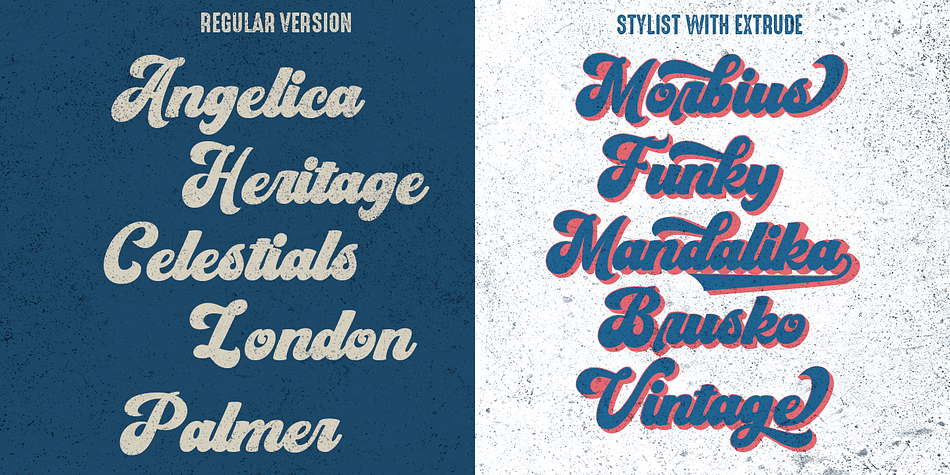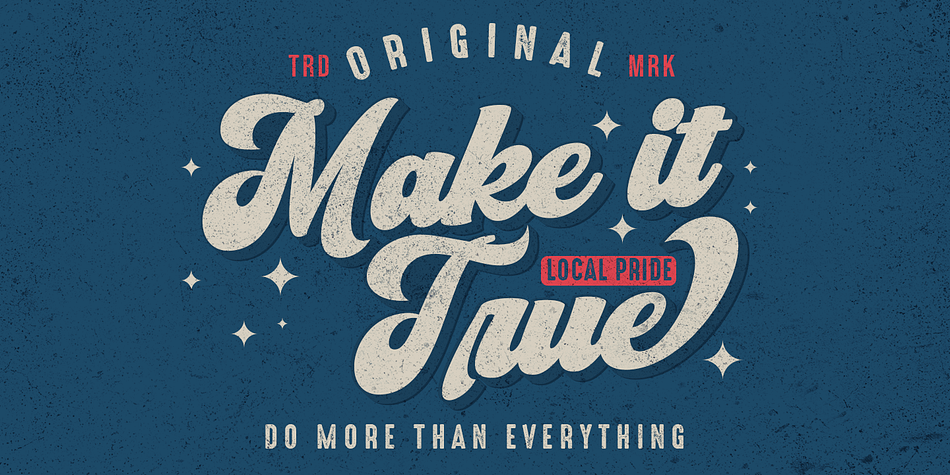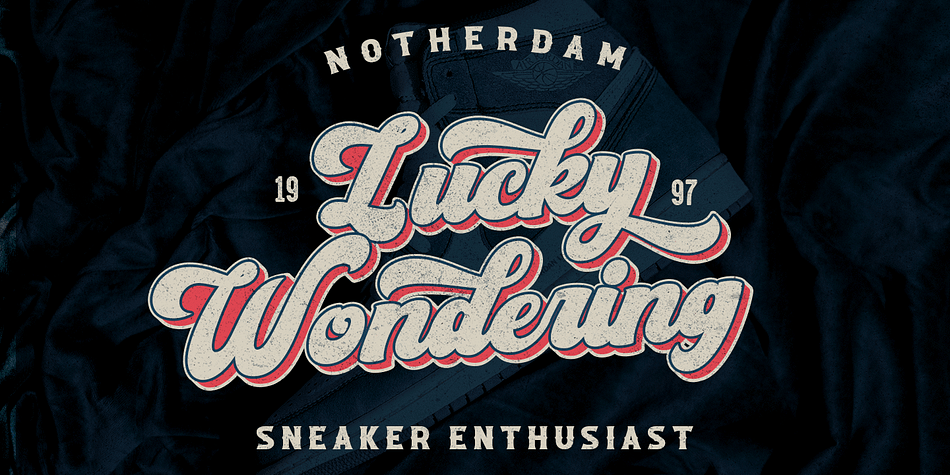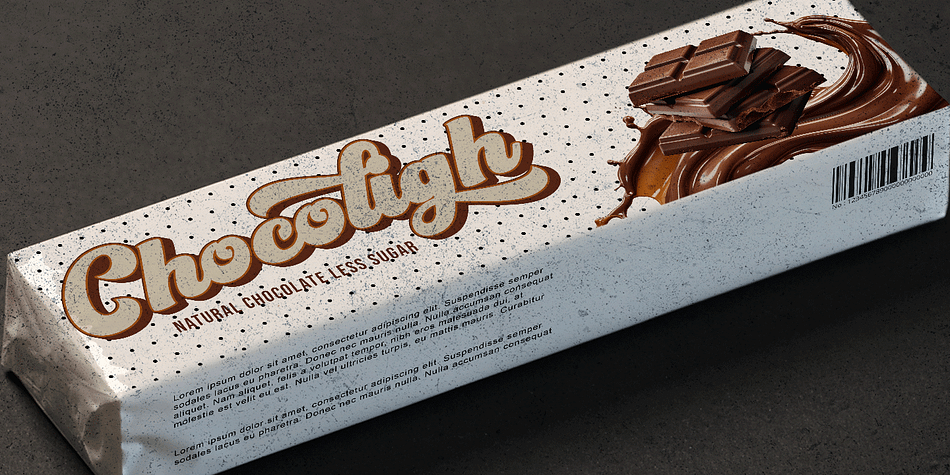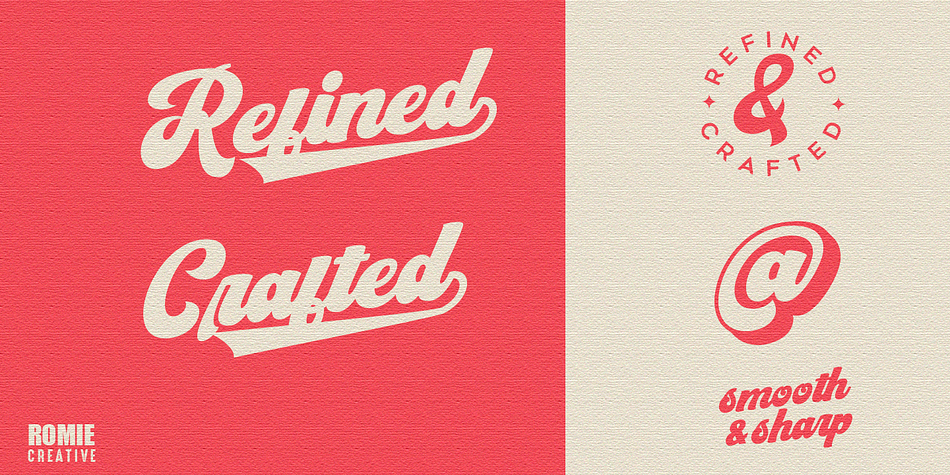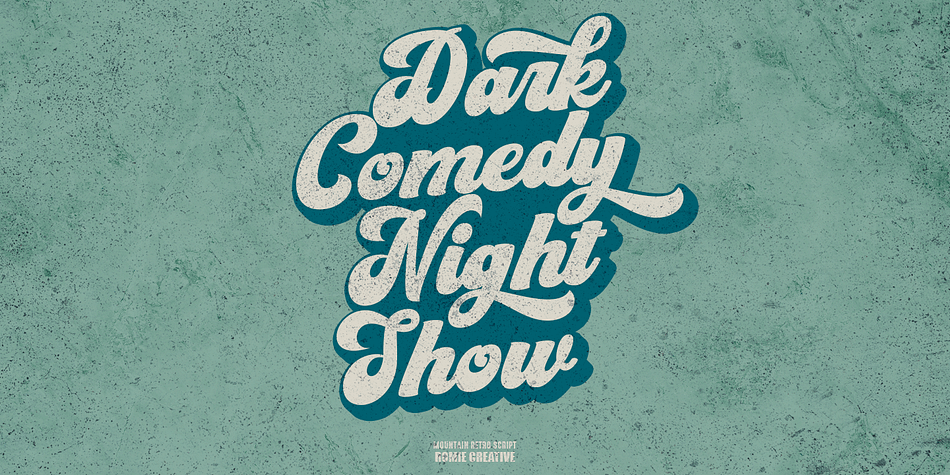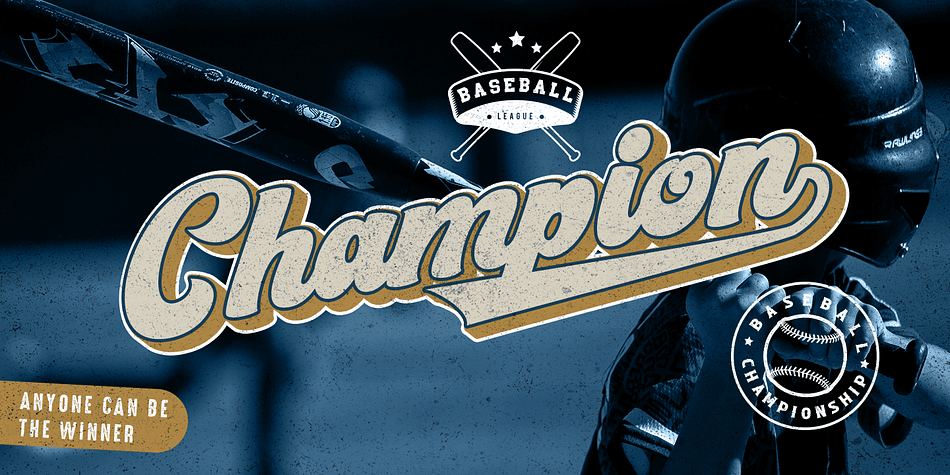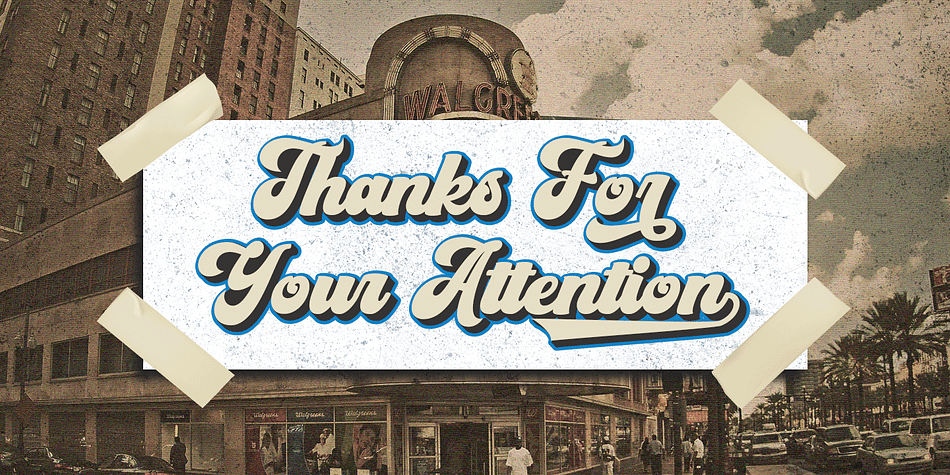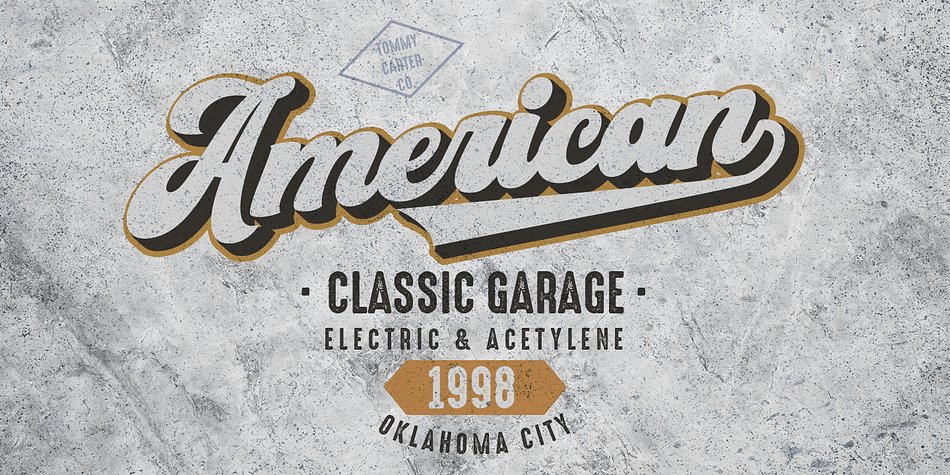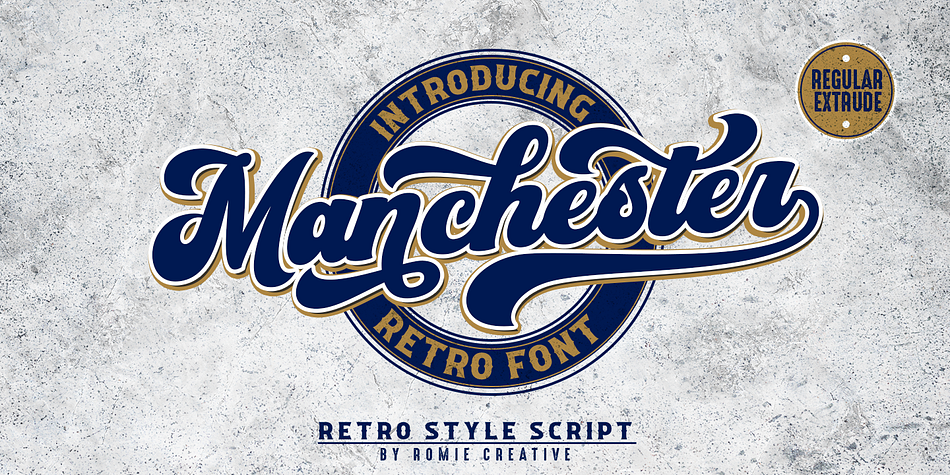
Manchester
Manchester is a retro and script font family. This typeface has two styles and was published by Romie Creative.
Manchester is a vintage retro font. Inspired by retro typography and lettering from the 70s and 80s combined with a bold typographic style. This font is perfect for vintage and retro designs, badges, logos, t-shirts, posters, branding, packaging, signs, book covers and more!
Styles Retro, Script